Questions for Font Creators Part 3: Favorite Hiragana Glyph 1
The question “What is your favorite hiragana glyph?” was asked to staff at the Type Project.
For the answers to this question, there are many answers involving choosing hiragana with the reason: “because it is the glyph in which the feature of the entire typeface appears well.” This is similar to the answers to the “favorite kanji glyph” in the previous question. Reading the individuality of the entire typeface from one glyph is a perspective distinctive of typeface designers and engineers who normally deal with various typefaces and think about how to create typefaces with individuality.
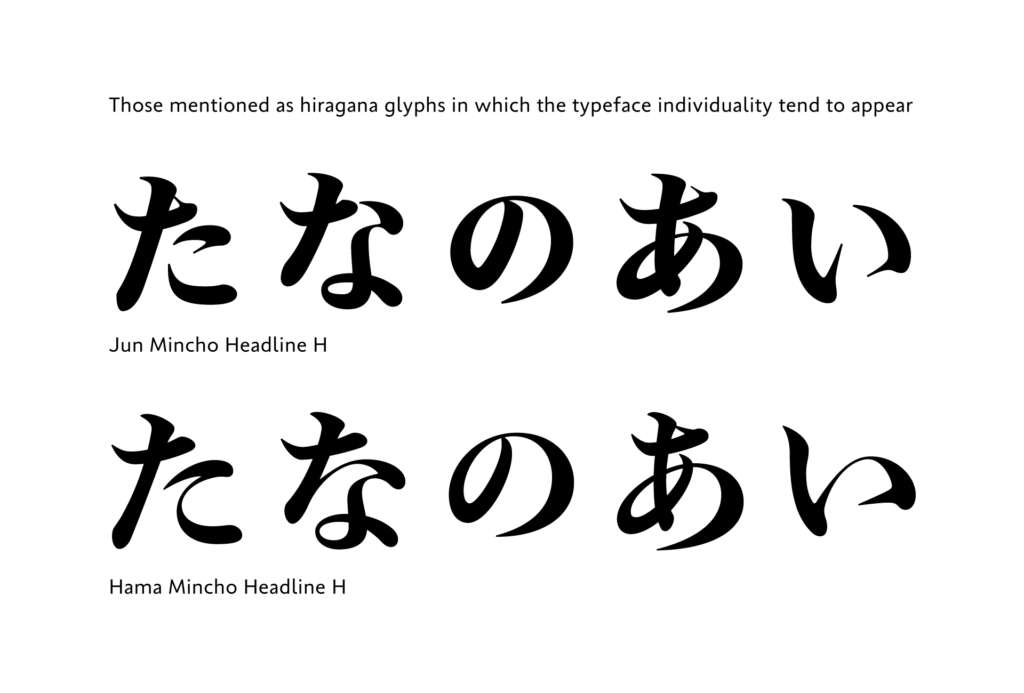
- “た,” “な,” and “の”:
The feature of font appears well in these characters. Although there is little to express design in “の” in particular, there are differences when you compare fonts, so I like it.
- “の”:
I observe the entry of the brush. I always look at this character when looking at a typeface, because the property of the brush in the typeface is shown clearly, as the brush goes around, and it makes me think how that curve is handled.
- “い”:
The typeface individuality is unexpectedly clear.
- “あ”:
I think the individuality is shown in this character.
There are answers that mention the impression at the time of actual creation or looking.
- “あ”:
I feel everything will work well when the shape of “あ” and “か” are decided perfectly when creating hiragana.
- “ふ”:
I enjoy the feeling of being distressed over which part to connect and separate.
- “む” and “を”:
It is fun to look at these hiragana, as the brush movement is very clear.
Although hiragana has few constituent elements, and there are glyphs in which showing individuality is difficult, and it is conveyed that finding design features from each glyph and its constituent parts are enjoyable for designers.